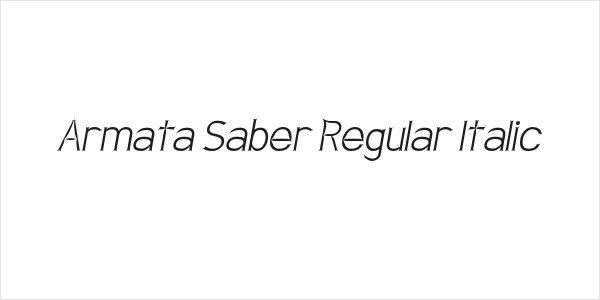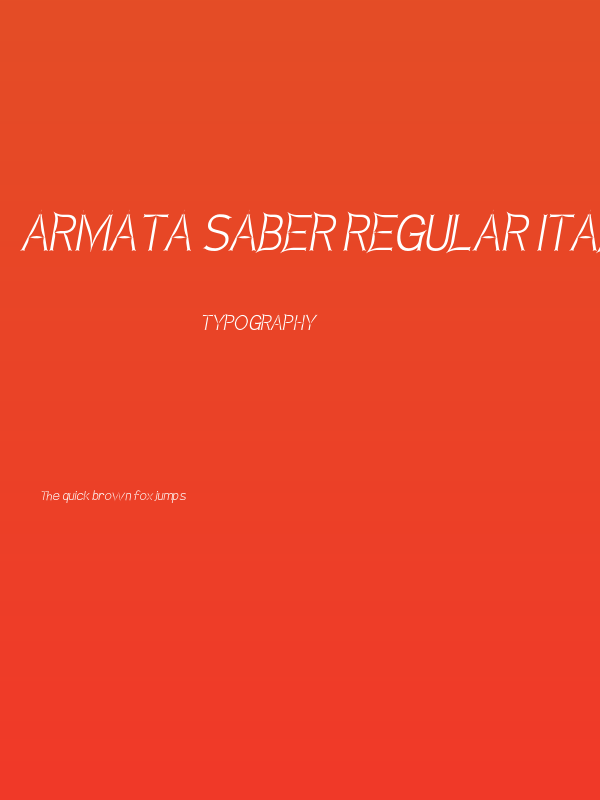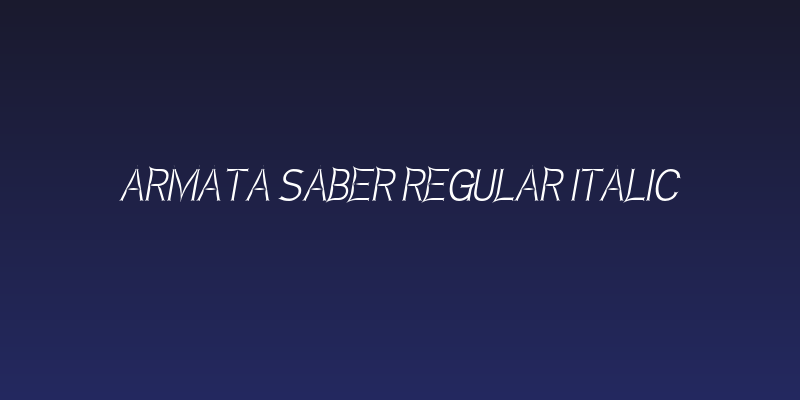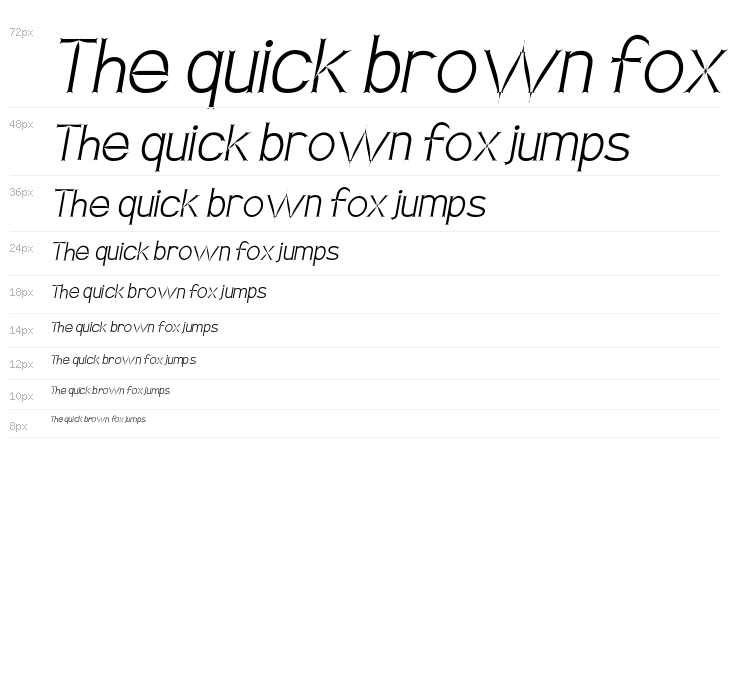
Armata Saber Regular Italic Font
Armata Saber Regular Italic Description
This font features a dynamic and modern design with a distinct italic slant, giving it a sense of motion and energy. The characters are sleek and elongated, with sharp angles and a futuristic feel. The uppercase letters exhibit a uniform height, while the lowercase letters maintain a consistent baseline, enhancing readability. The numerals are well-proportioned, matching the style of the alphabetic characters. Special characters are creatively designed, maintaining the overall aesthetic. The font's unique style makes it suitable for projects that require a contemporary and edgy look.
| Use Case | Headlines, Logos, Digital Media |
| Proposed Projects | Ideal for branding, advertising, and digital media projects that seek a modern and energetic aesthetic. |